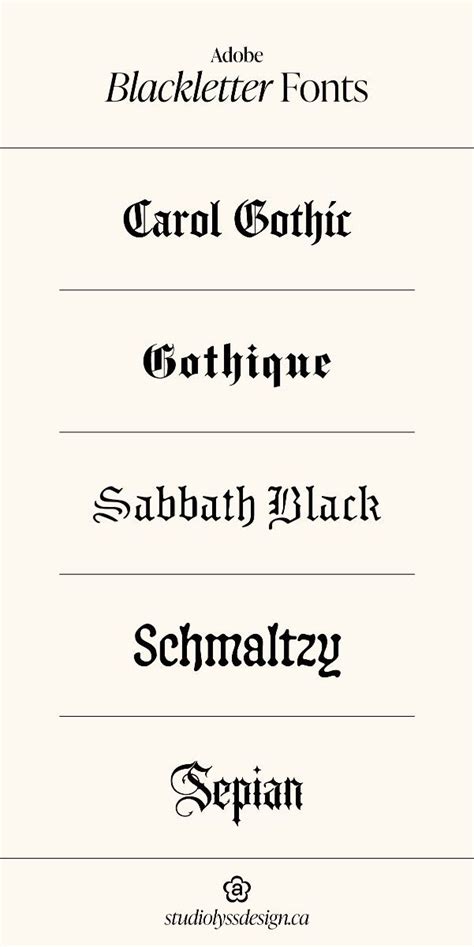
Adobe Blackletter Fonts For A Unique Look In 2023
Are you looking for a unique look to your designs in 2023? Adobe Blackletter fonts might be just the thing you’re looking for. These fonts have been around since the early 16th century and have remained popular throughout the centuries. They’re still popular today, especially with digital designers looking to create something unique and eye-catching. This article will explain what Adobe Blackletter fonts are, why they’re still so popular, and how you can use them in your projects.
What are Adobe Blackletter Fonts?
Adobe Blackletter fonts are a type of typeface that was popularized during the early 16th century. It was used mainly in manuscripts, but it also became popular in printing. The font style is characterized by its thick, bold lines and sharp angles. It is one of the oldest typefaces still in use today. It has been used in many different designs over the centuries, including logos, posters, and book covers.
Why Are Adobe Blackletter Fonts Still Popular?
Adobe Blackletter fonts remain popular because they provide a unique look to a design. The thick, bold lines and sharp angles can create an eye-catching design that stands out from the crowd. The font also has a vintage feel to it, adding to its appeal. It can be used to create a classic look or to give an old-fashioned feel to a modern design. Additionally, many people believe that the font has an aura of sophistication and power.
How to Use Adobe Blackletter Fonts?
Adobe Blackletter fonts can be used in a variety of ways. They can be used for logos, posters, book covers, and other print and digital designs. They are also often used in advertising, especially when trying to create a vintage or classic look. Additionally, they can be used to create an aura of sophistication and power. It’s also important to consider how the font fits into the overall design when using Adobe Blackletter fonts.
Adobe Blackletter fonts have been around since the 16th century and remain popular to this day. They provide a unique look to a design and have an aura of sophistication and power. They can be used in a variety of ways, including logos, posters, book covers, and more. When using Adobe Blackletter fonts, it’s important to consider how the font fits into the overall design.